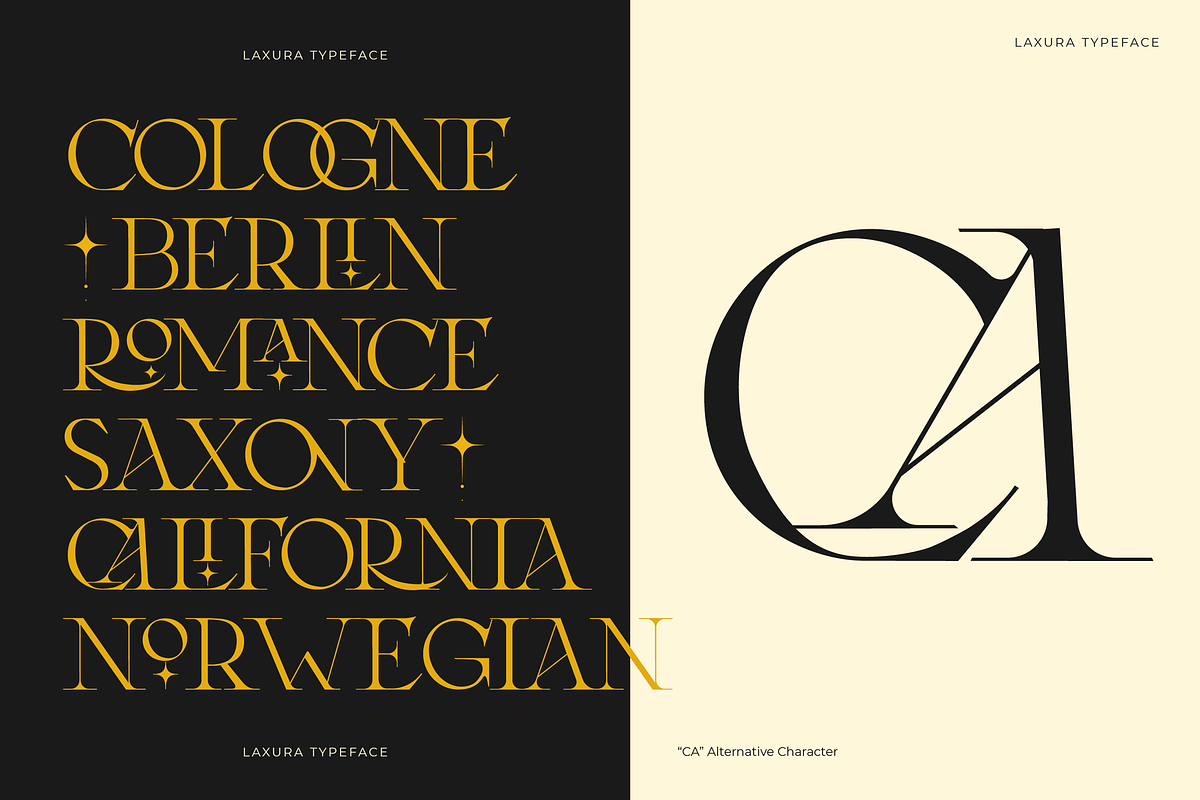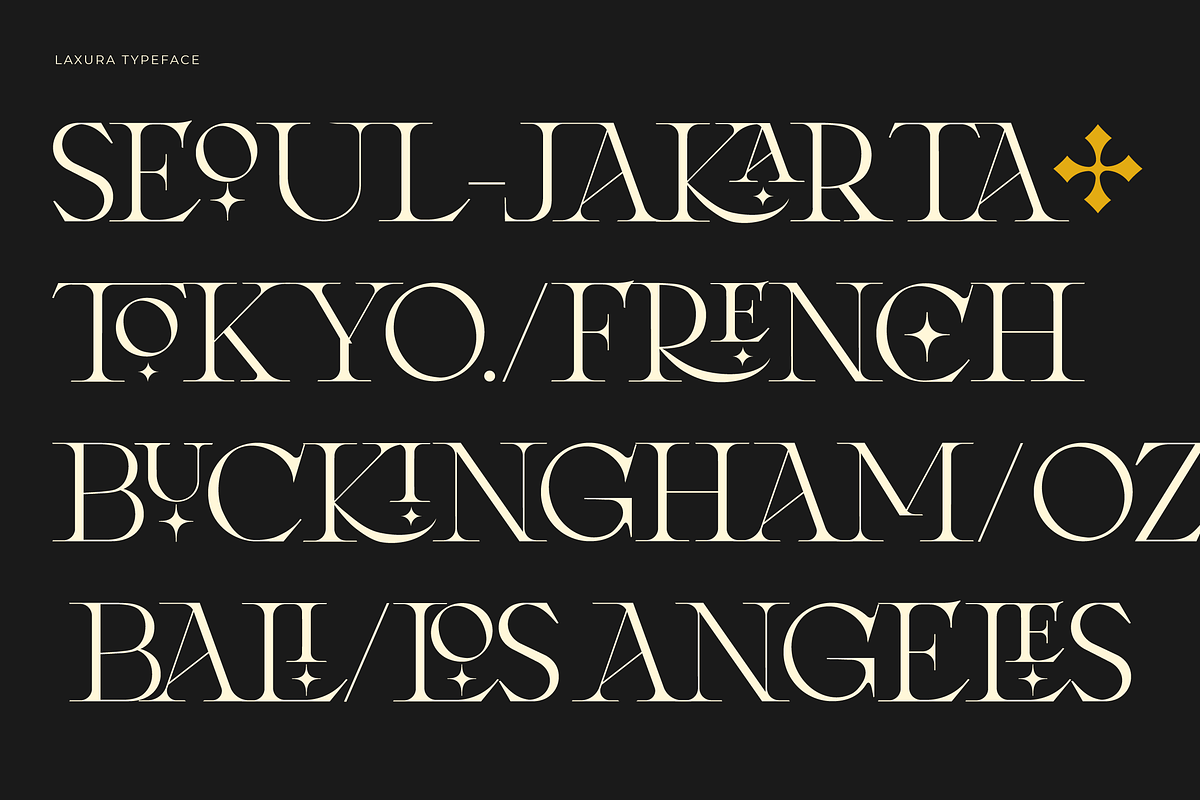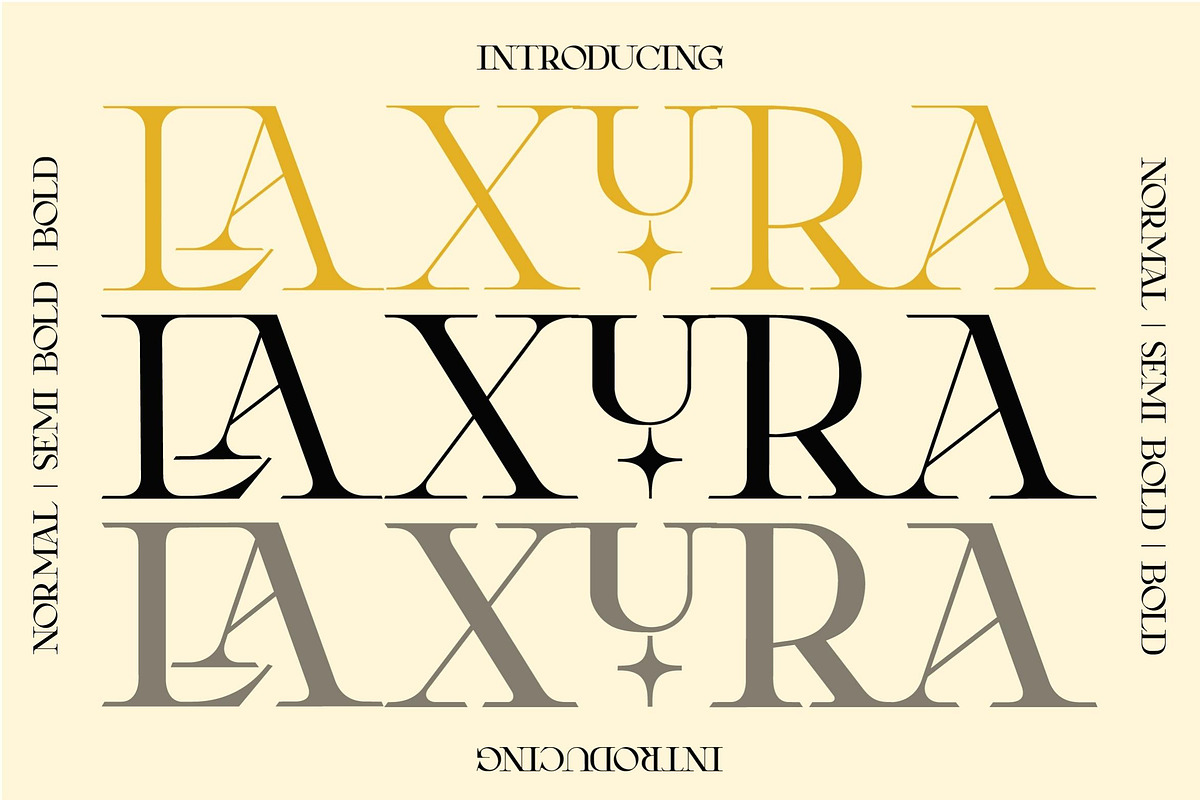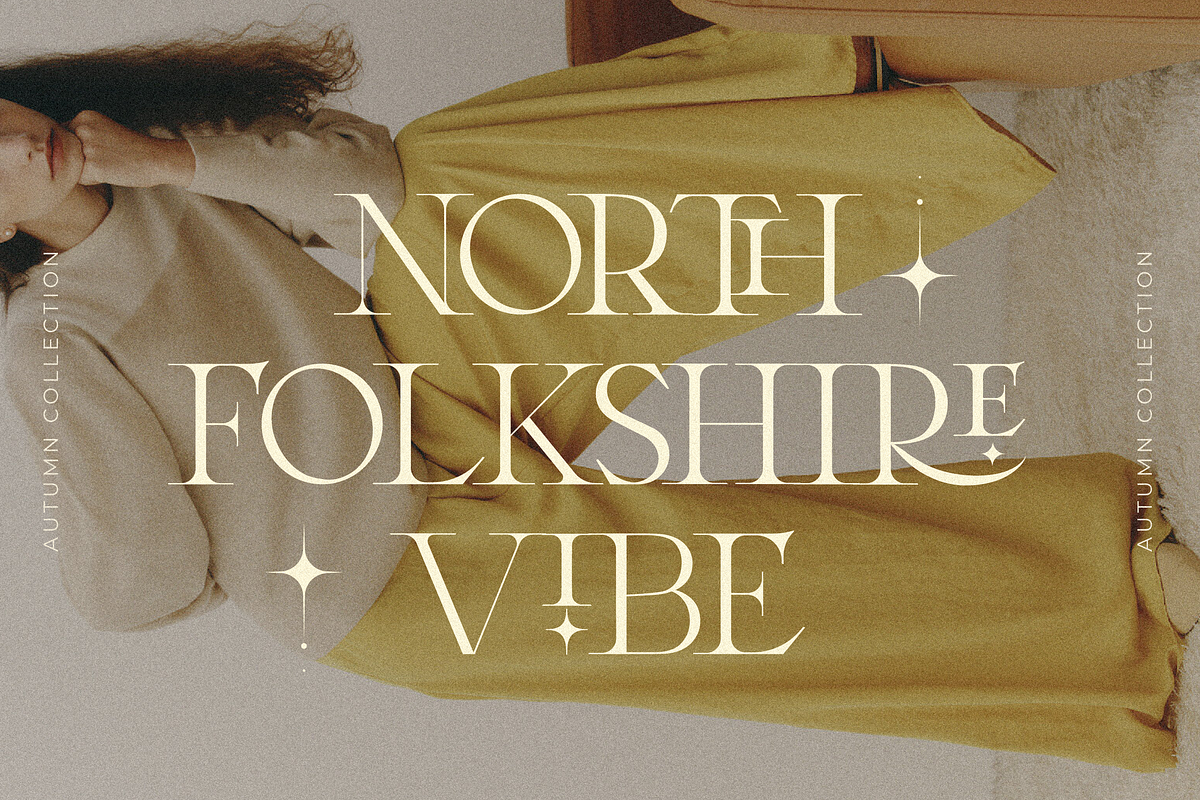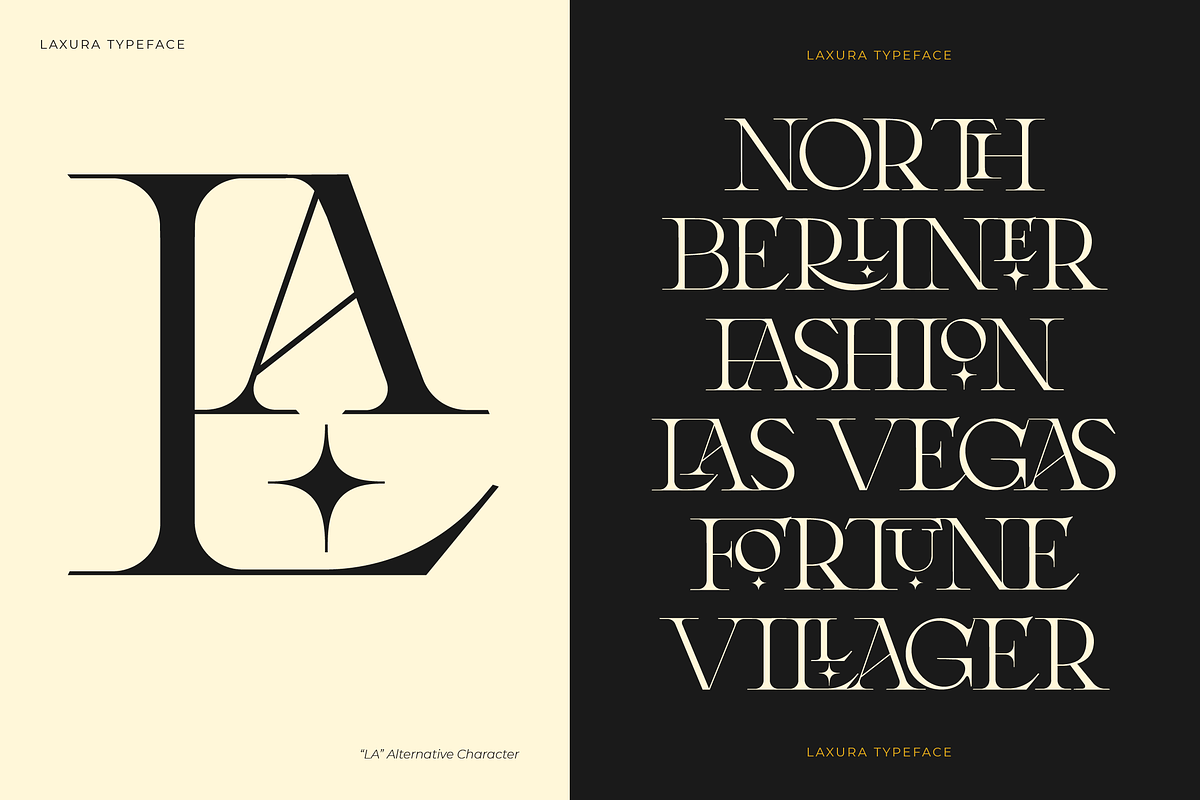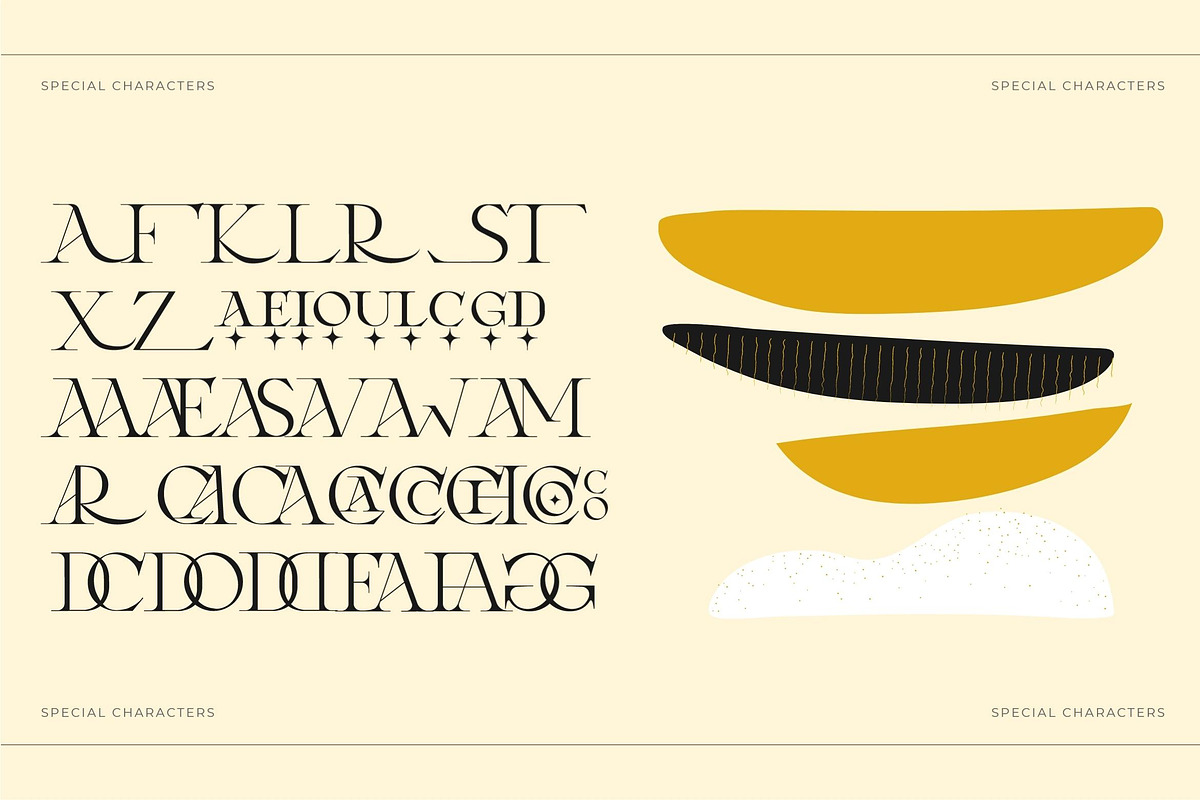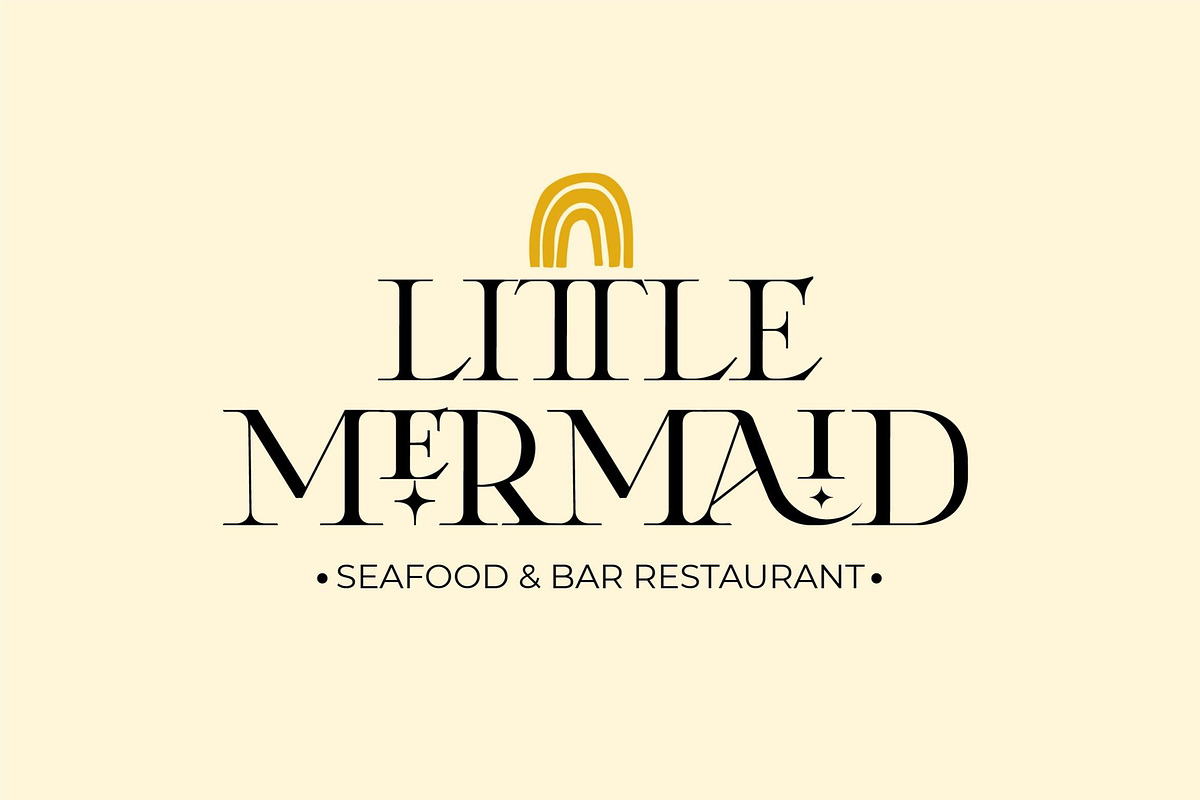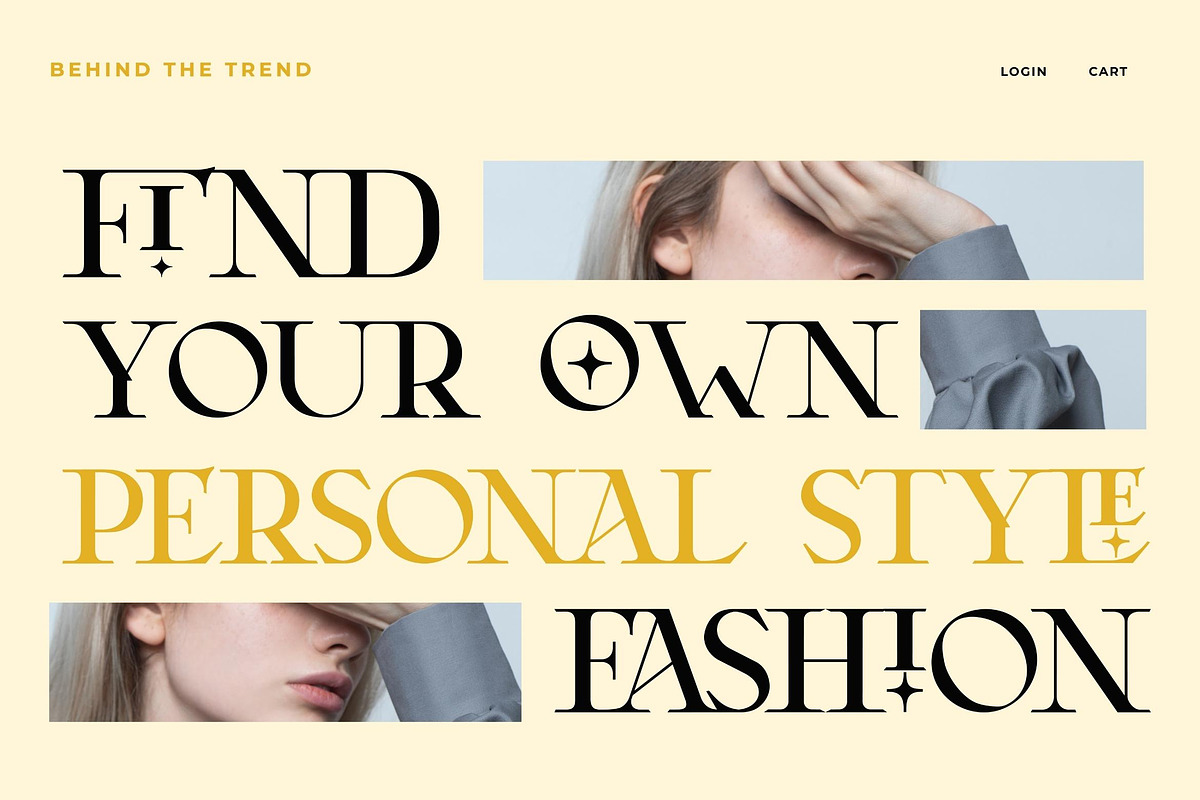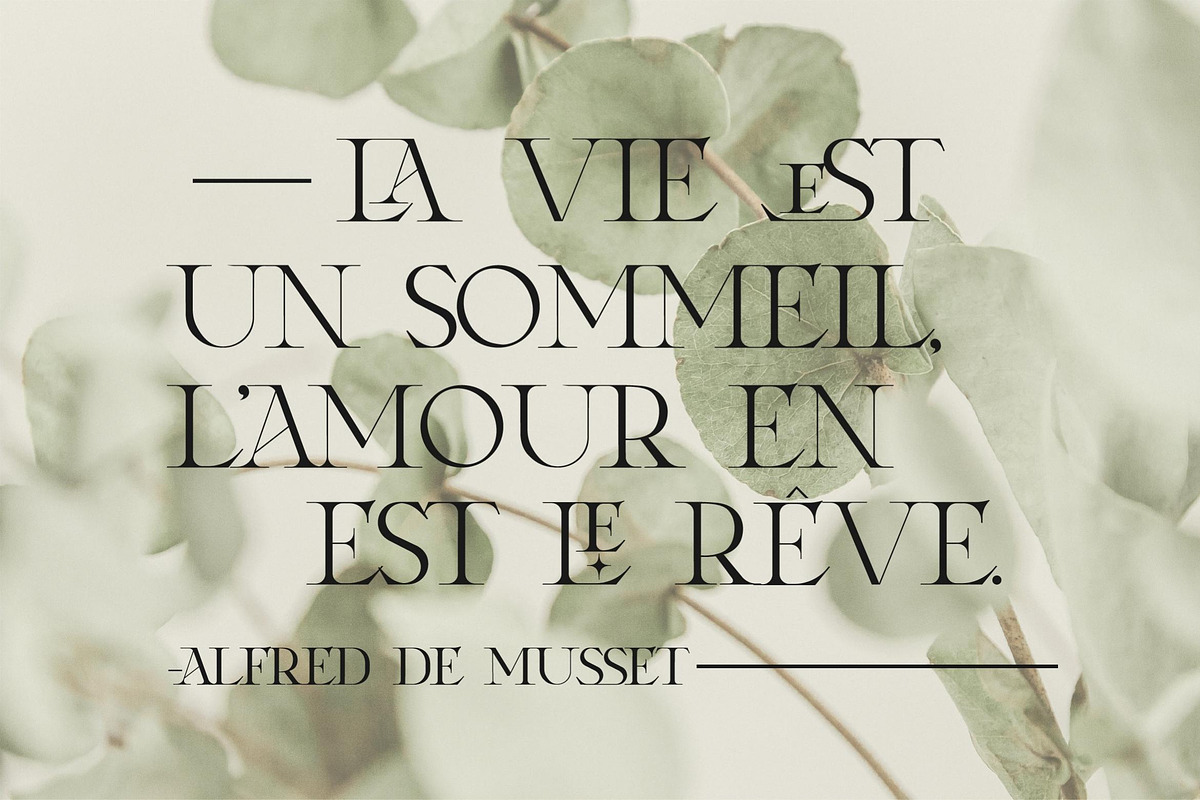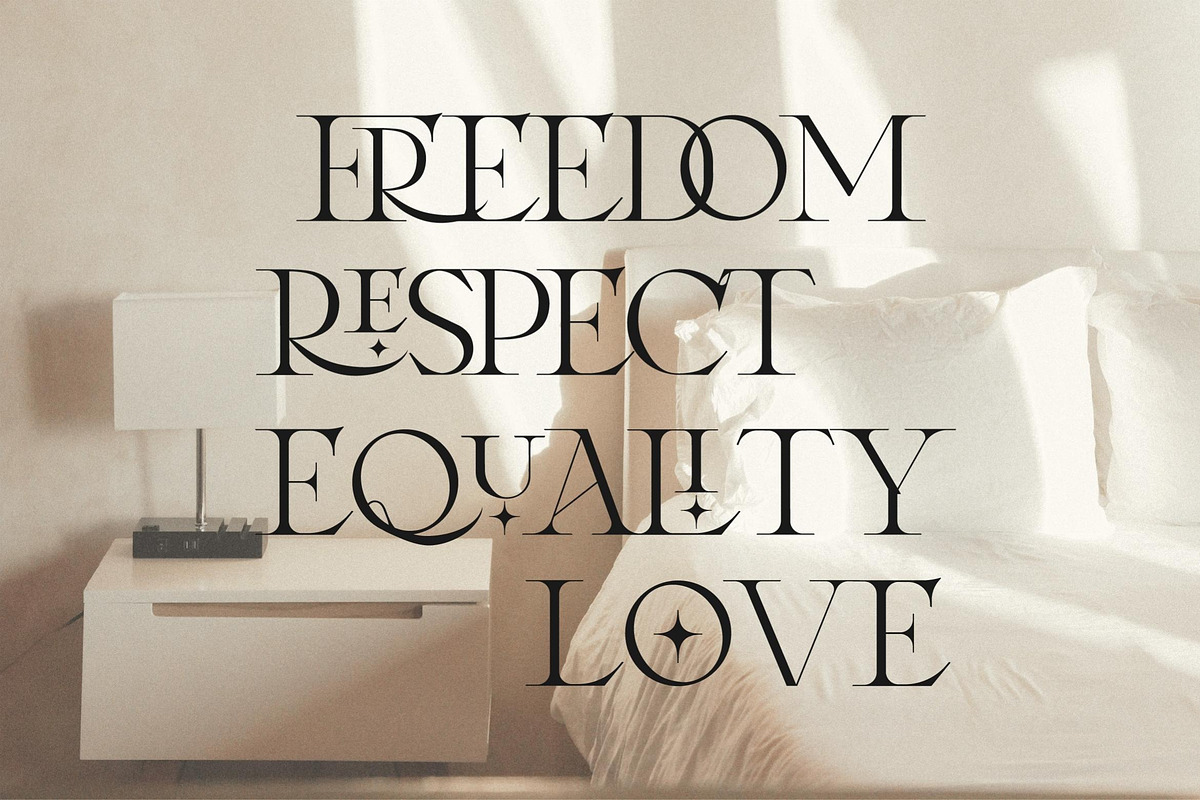
Laxura - Majestic Typeface
Laxura is a contemporary vintage serif with style based on 18th Century European aesthetics that is both elegant and unique with smooth and sharp curves and beautiful ligatures, tons of special alternative glyphs, ornament and multilingual support. It's a very versatile font that works great in large and small sizes. Laxura is perfect for branding projects, Logo design, Clothing Branding, product packaging, magazine headers, or simply as a stylish text overlay to any background image.
- 3 Weights font
- Stylistic Alternates & Ligatures